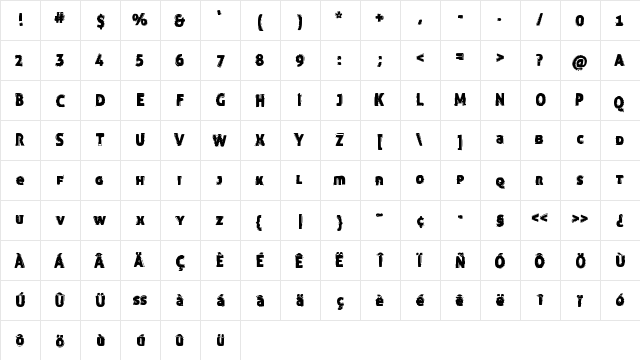
FunnyTrip Medium
Design Context for FunnyTrip Typeface
FunnyTrip trades formality for fun, with bouncy, characterful letterforms that bring warmth and energy to any project.
Well-suited to food and beverage brands with personality, educational materials, and fun-forward identities.
Font Pairing: Pairs well with a rounded or humanist sans for body copy, maintaining the friendly tone without relying on FunnyTrip to carry extended reading.
Pro Tip: Use FunnyTrip at larger display sizes where its expressive character can land. Pair with a clean, simple sans for body copy to maintain readability.